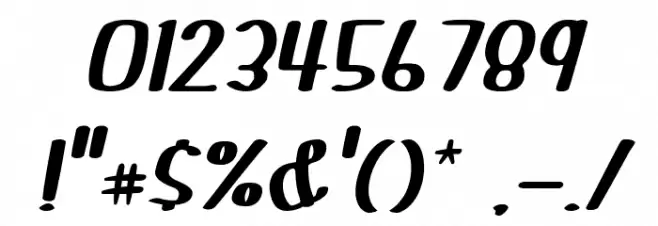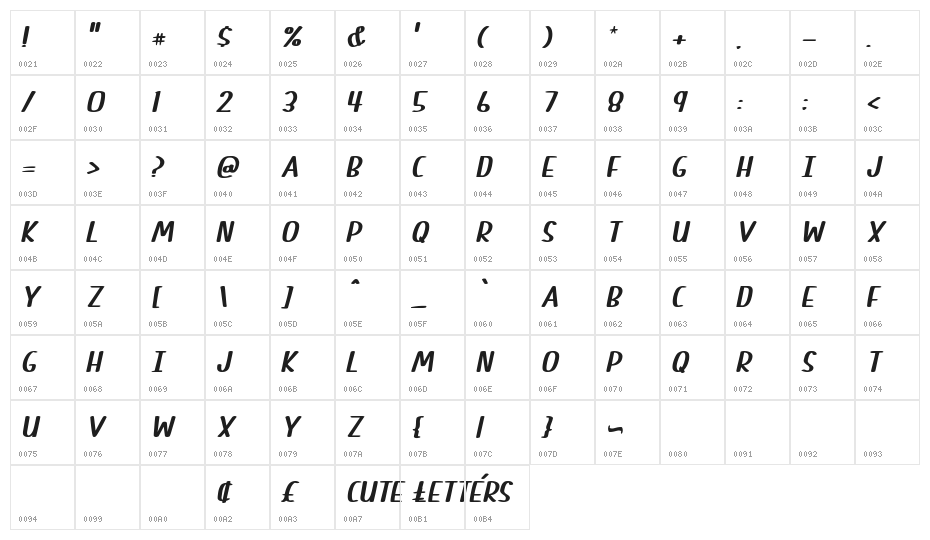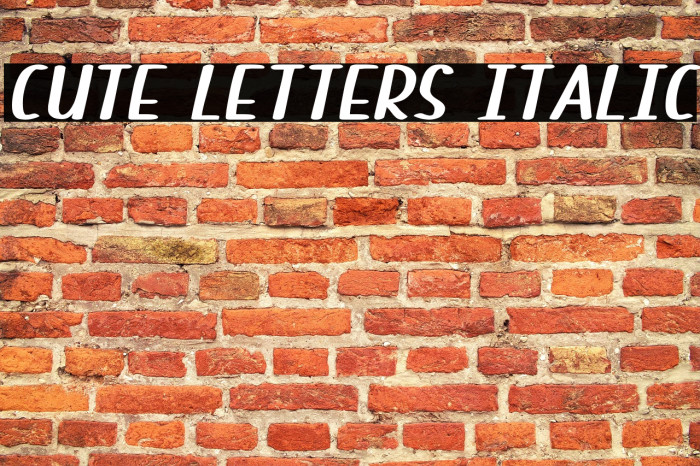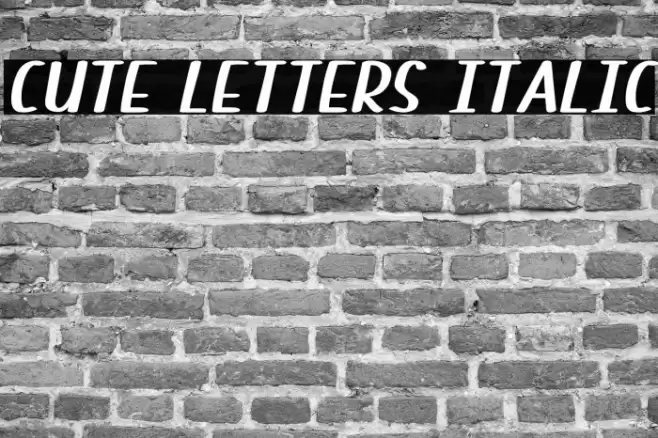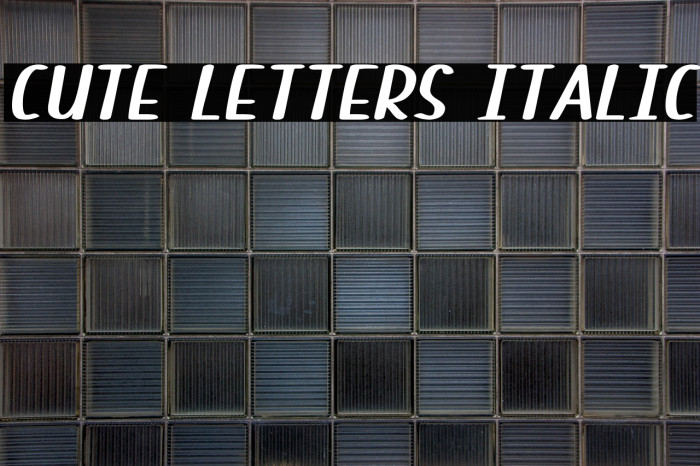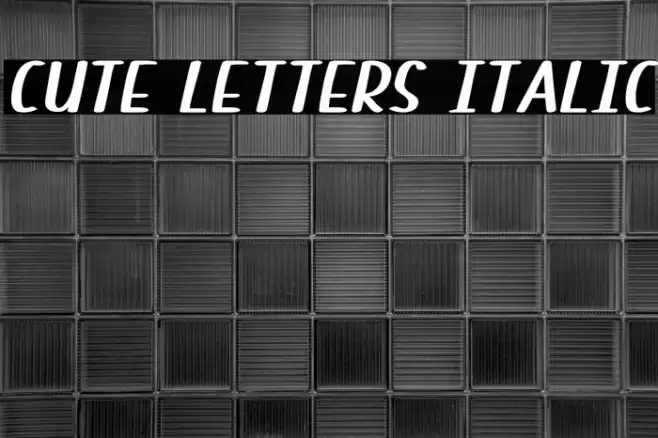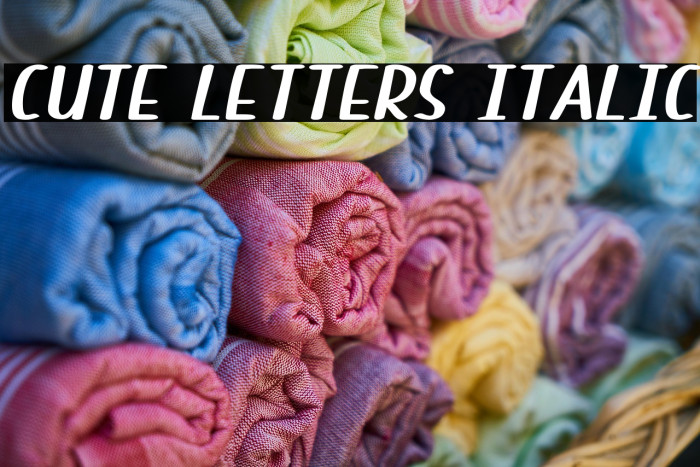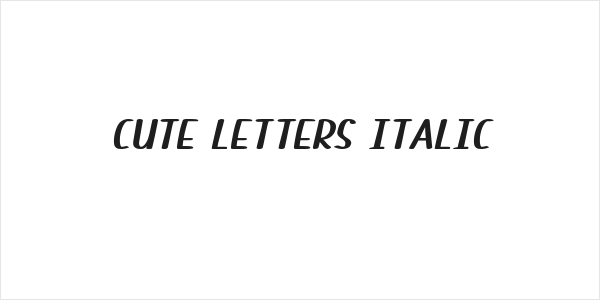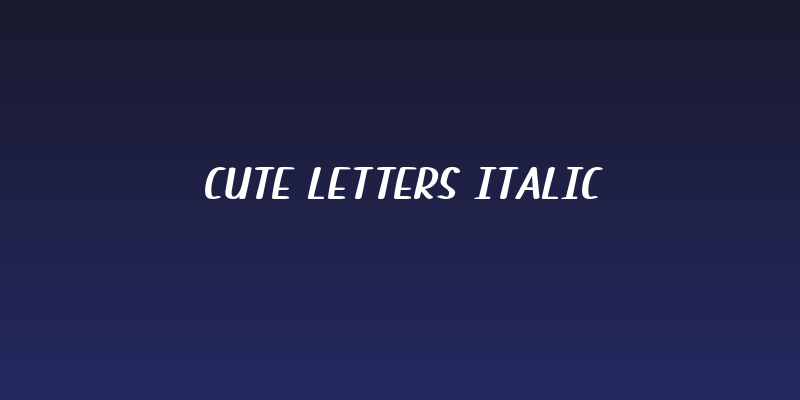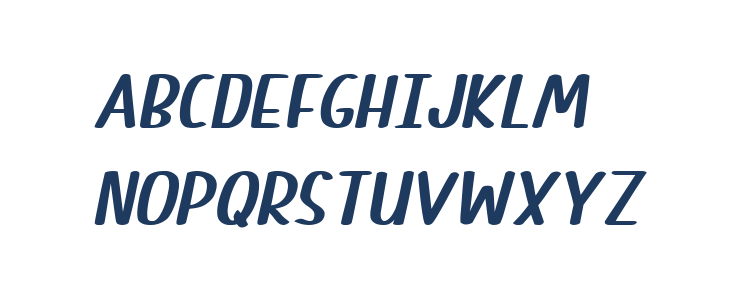
Cute Letters Italic Font
Cute Letters Italic Description
This font features a playful and dynamic style with a slight slant, giving it an italic appearance. The characters are bold and rounded, exuding a friendly and approachable vibe. The uppercase and lowercase letters maintain a consistent flow, while the numerals and special characters are designed to complement the overall aesthetic. The strokes are uniform, with medium contrast, making it suitable for various creative applications.
| Proposed Projects | Ideal for children's books, playful branding, greeting cards, and casual invitations. |